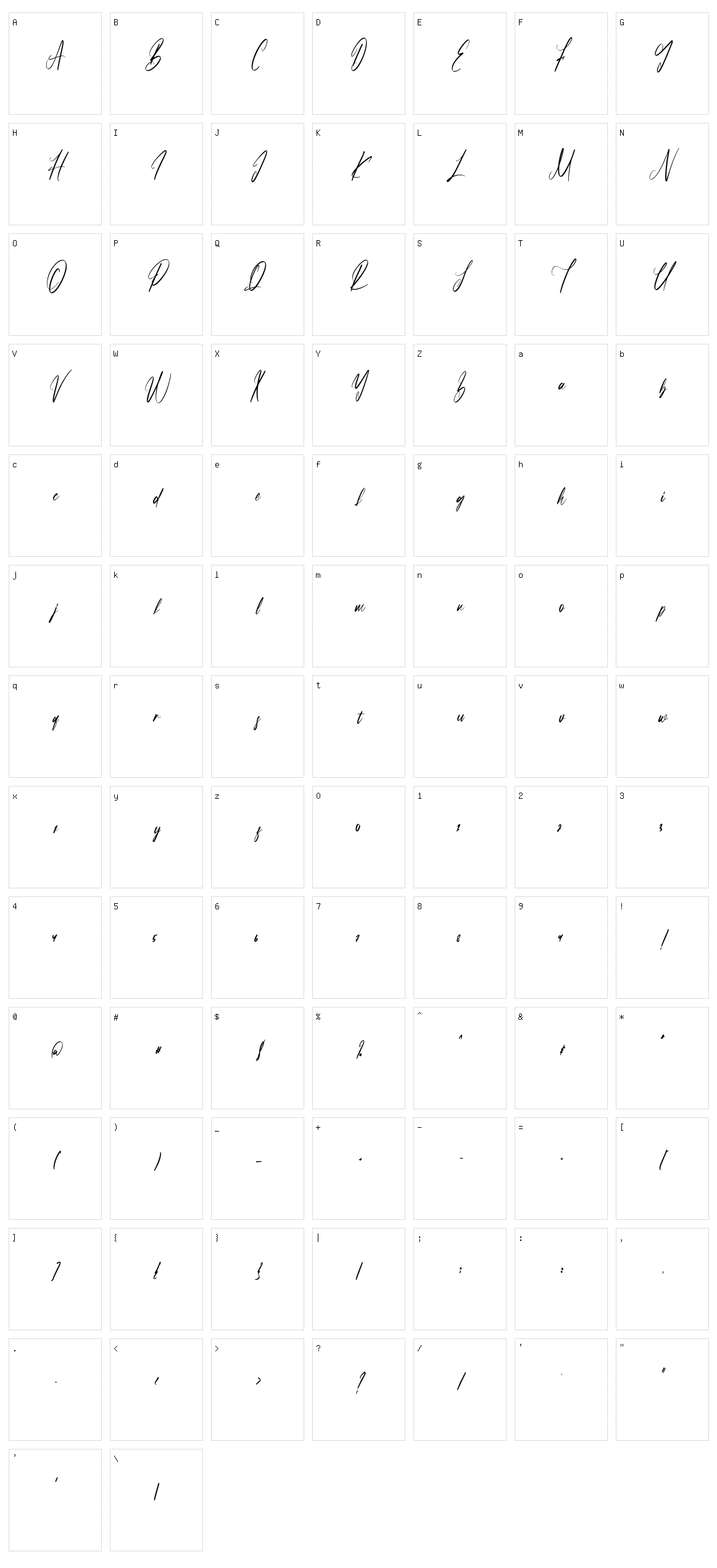
The free font Partiny Agathi is carefully designed by StringLabs Creative Studio, showcasing a thoughtful balance of creativity and usability and falls under the Script font style. When you download the ZIP file, it contains only 76.64 KB of font files, making it lightweight and quick to download. Please review the license details below to understand permitted usage and distribution rights. If license information is not available, we recommend using this font for personal projects only or contacting the author directly for commercial usage permissions.